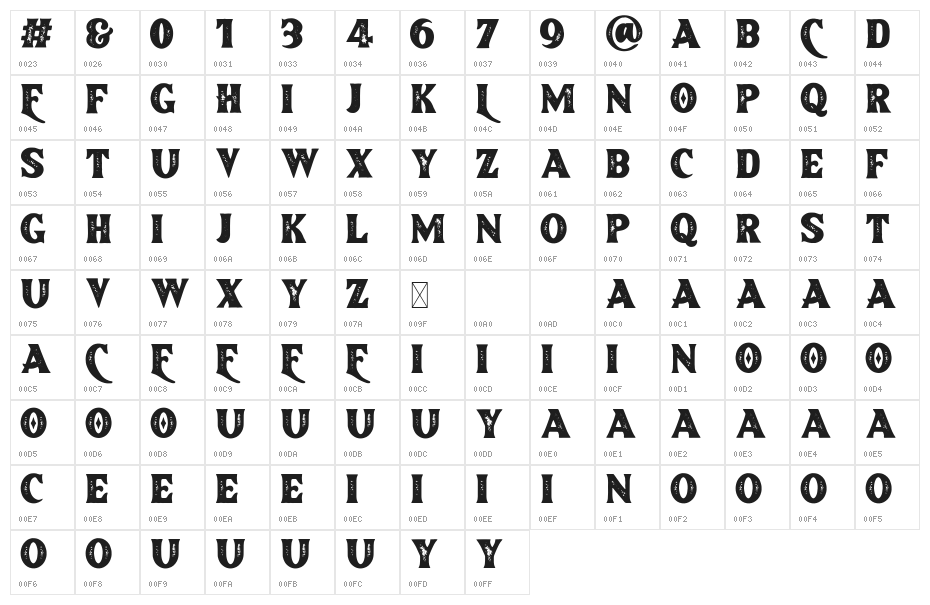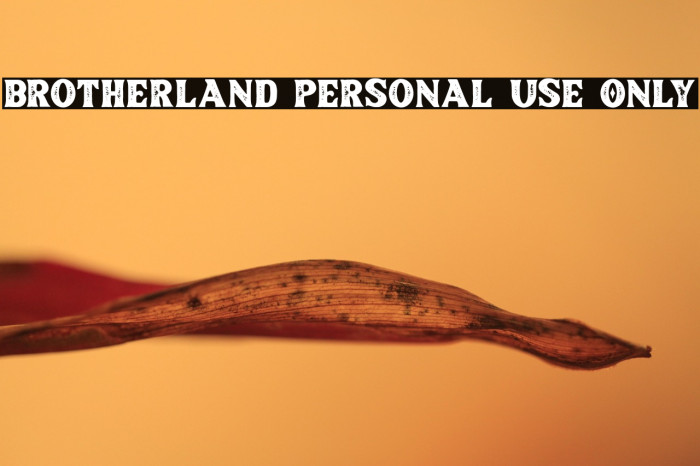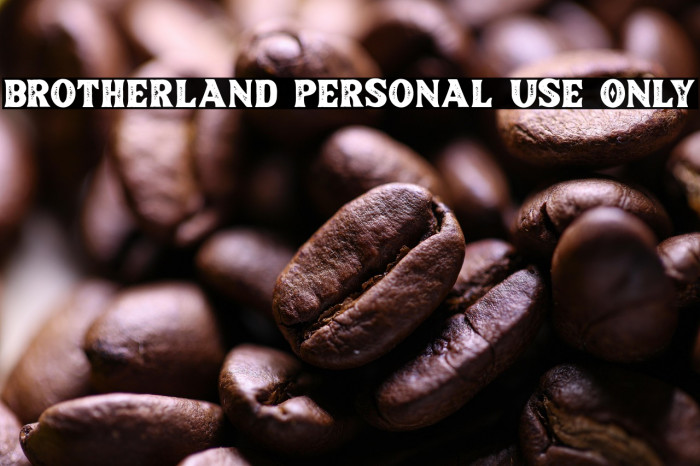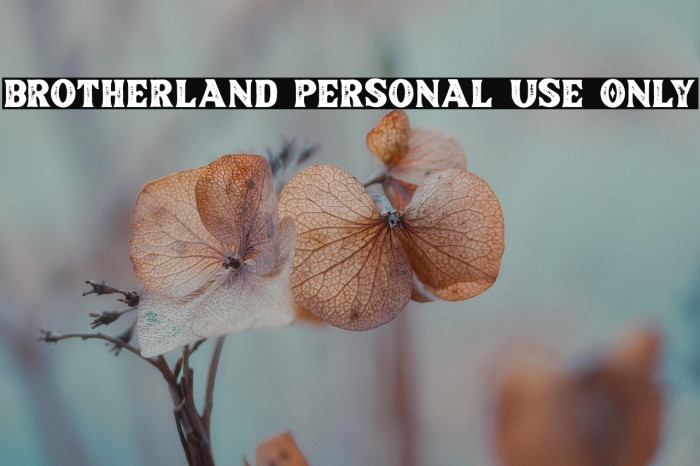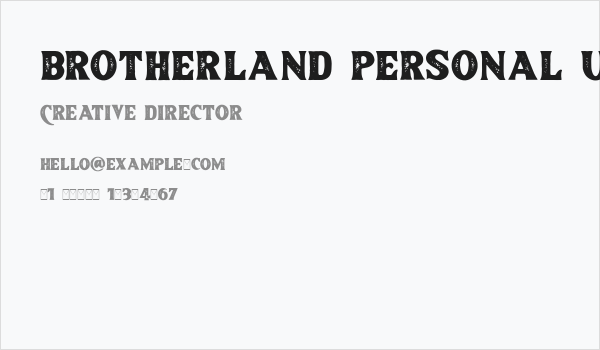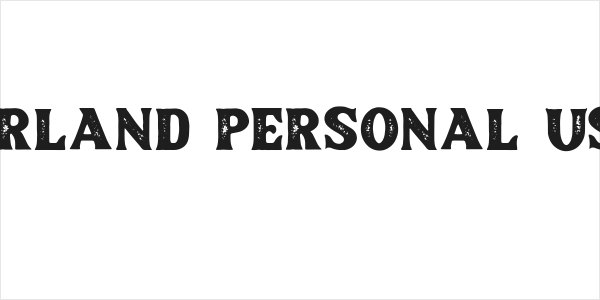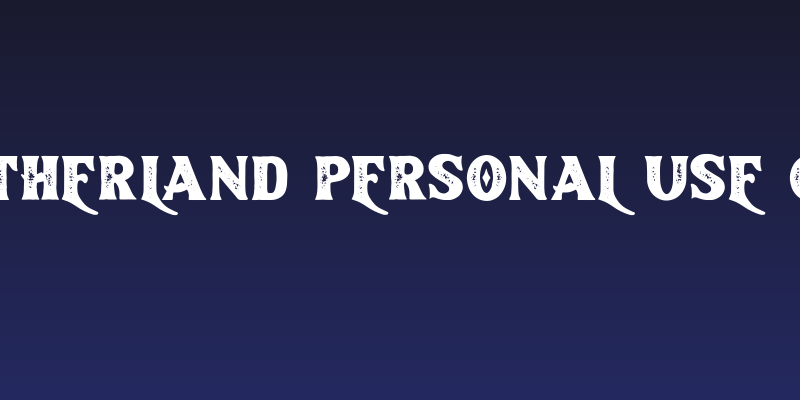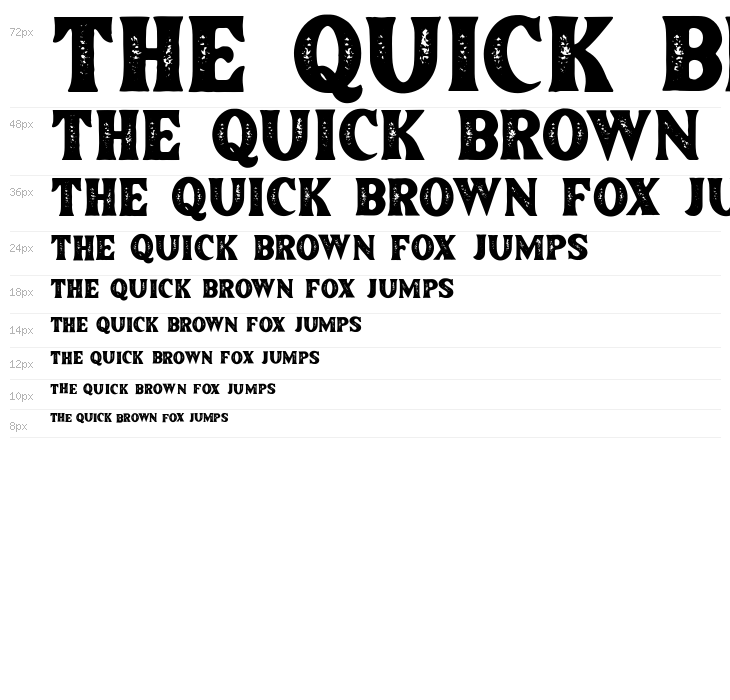
Brotherland Personal Use Only Font
Brotherland Personal Use Only Description
This font features a bold and decorative style with a distressed texture that gives it a vintage and rugged appearance. The characters are designed with strong, thick strokes and unique serifs that add to its distinctive look. The uppercase letters are particularly striking, with some characters incorporating curved elements that enhance their visual appeal. The numbers and special characters maintain the same bold and textured style, ensuring consistency across the font. This font's design is ideal for projects that require a bold statement or a touch of nostalgia.
| Overall Style | Vintage, Decorative |
| Proposed Projects | Perfect for posters, logos, branding, and any design needing a bold, vintage touch. |